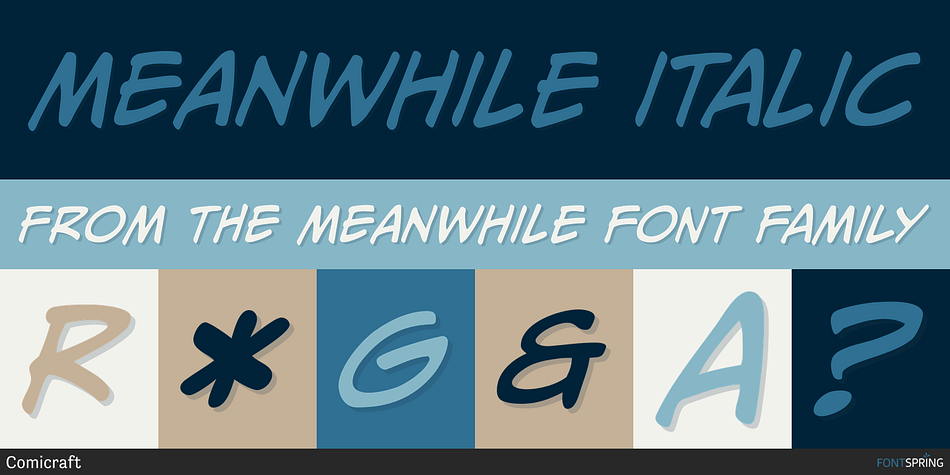
MEANWHILE ITALIC
Designed by John Roshell, Meanwhile is a comic and hand display font family. This typeface has five styles and was published by Comicraft.
Suddenly—’ just isn’t ‘Soon…’ enough for some people, and ‘Later…’ isn’t quite ‘The Next Day…’ ‘Meanwhile…’ lies inbetween ‘Seconds pass…’ and ‘That Night…’ and was designed by Comicraft’s John ‘With Just a few minutes to Go…’ Roshell in order to tell the tales of Marvel’s AVENGERS and FANTASTIC FOUR. ‘And now, back to the action…’
Latest update: Feb 2019 – Remastered with improved spacing and kerning, added fireflies, Bold weight, Cyrillic characters & Crossbar I Technology™